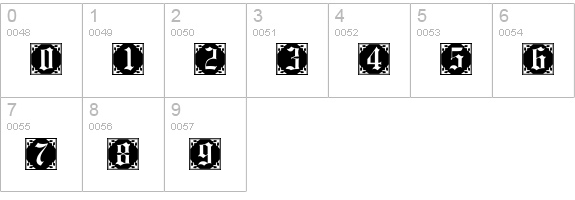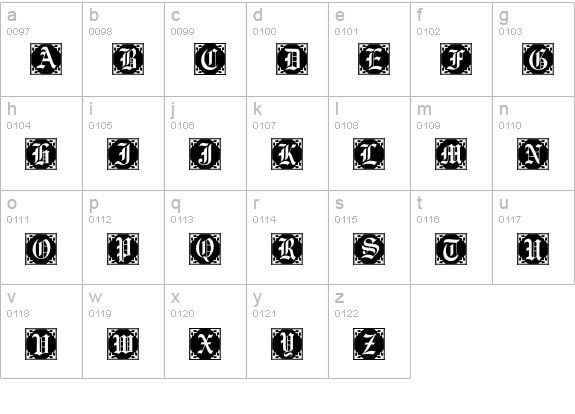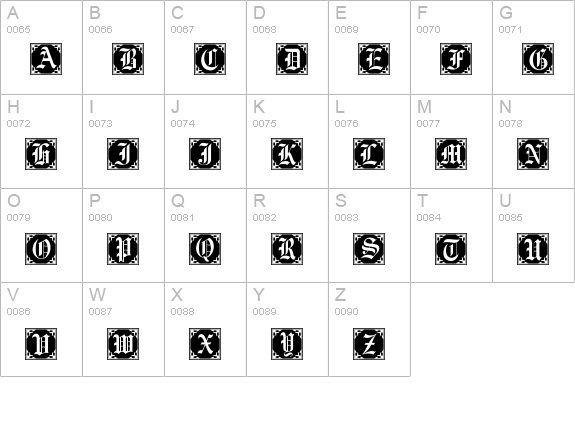
GothicCornerCaps Font Details
GothicCornerCaps font is a stunning display typeface that exudes a sense of mystery and elegance. With its intricate details and gothic-inspired design, this font is perfect for adding a touch of sophistication to your projects. Each letter is adorned with unique corner caps that give the text a dramatic and ornate appearance. The GothicCornerCaps font is ideal for creating titles, headlines, invitations, and other design projects that call for a touch of old-world charm. Whether you're working on a spooky Halloween flyer or a vintage-inspired poster, this font is sure to make a statement. Best of all, the GothicCornerCaps font is completely free to download at FontsMarket.com. So go ahead and elevate your designs with this exquisite font today!